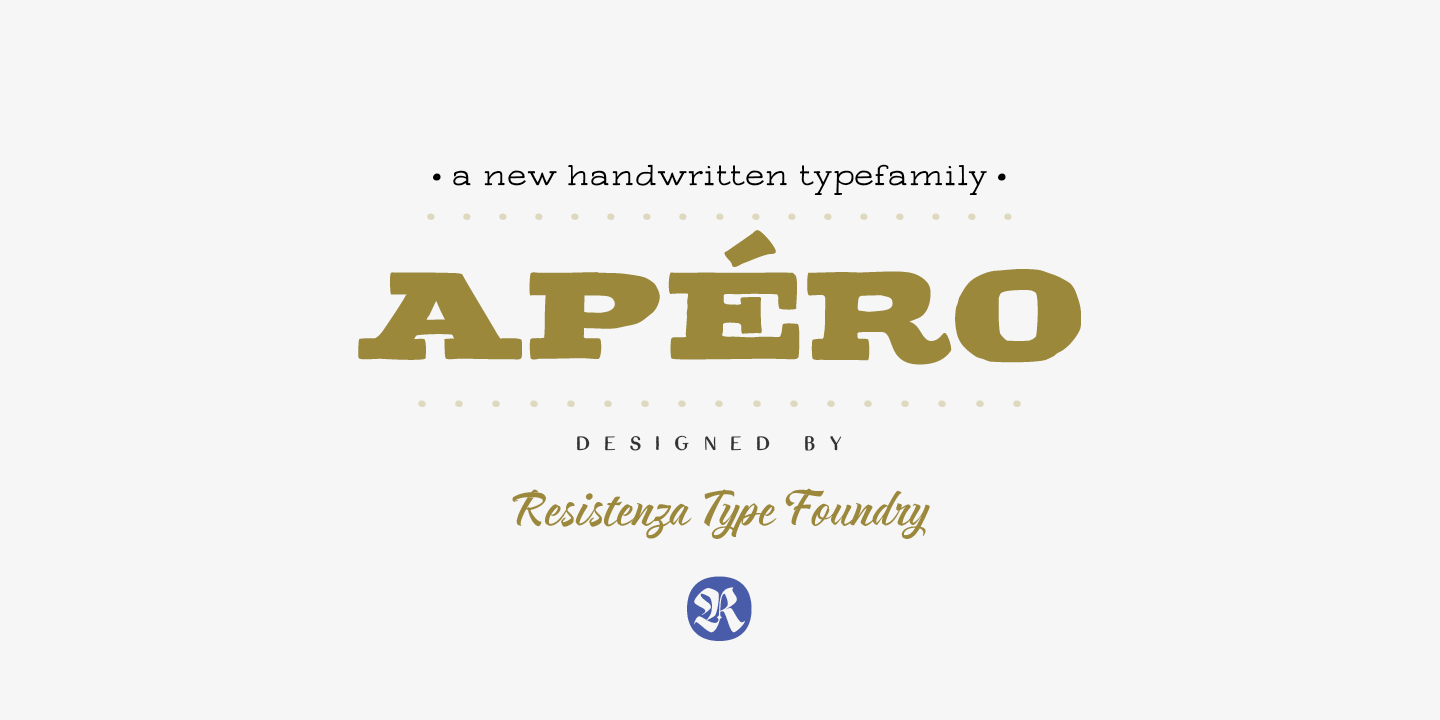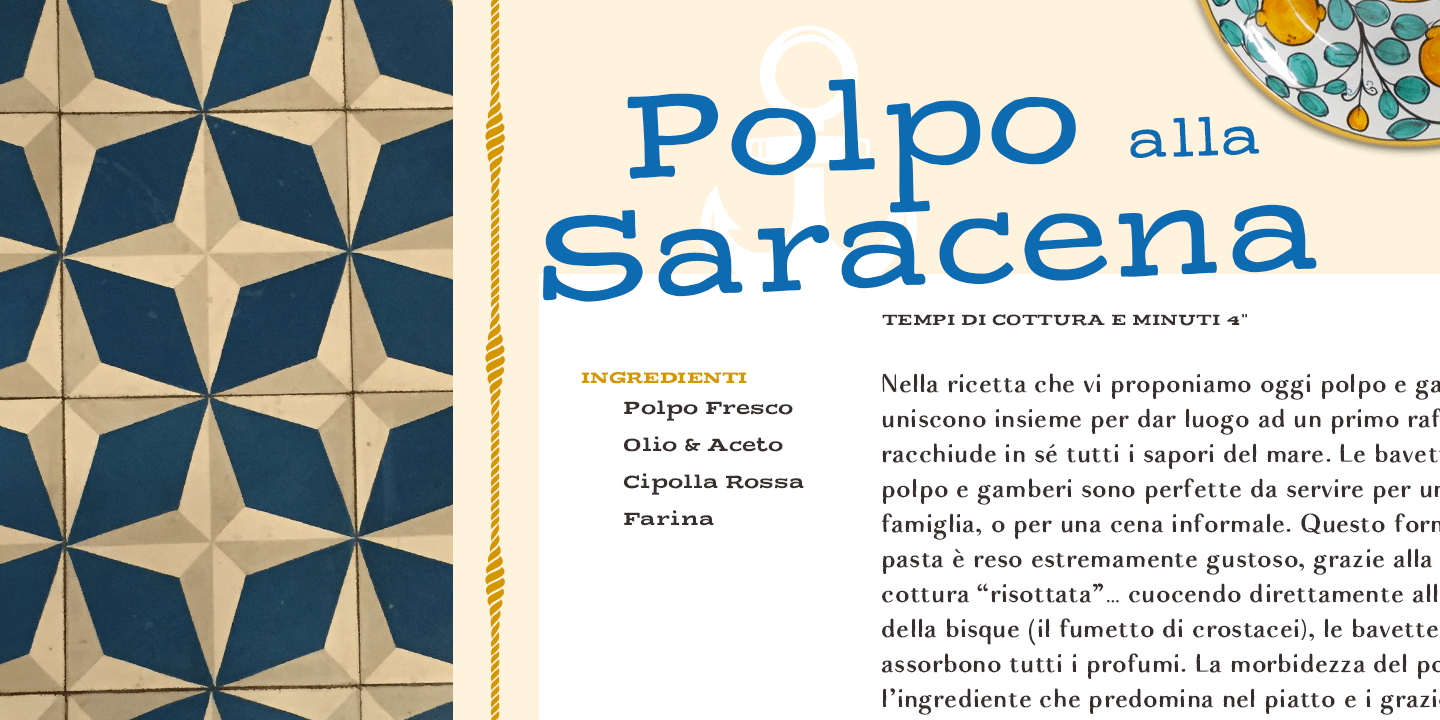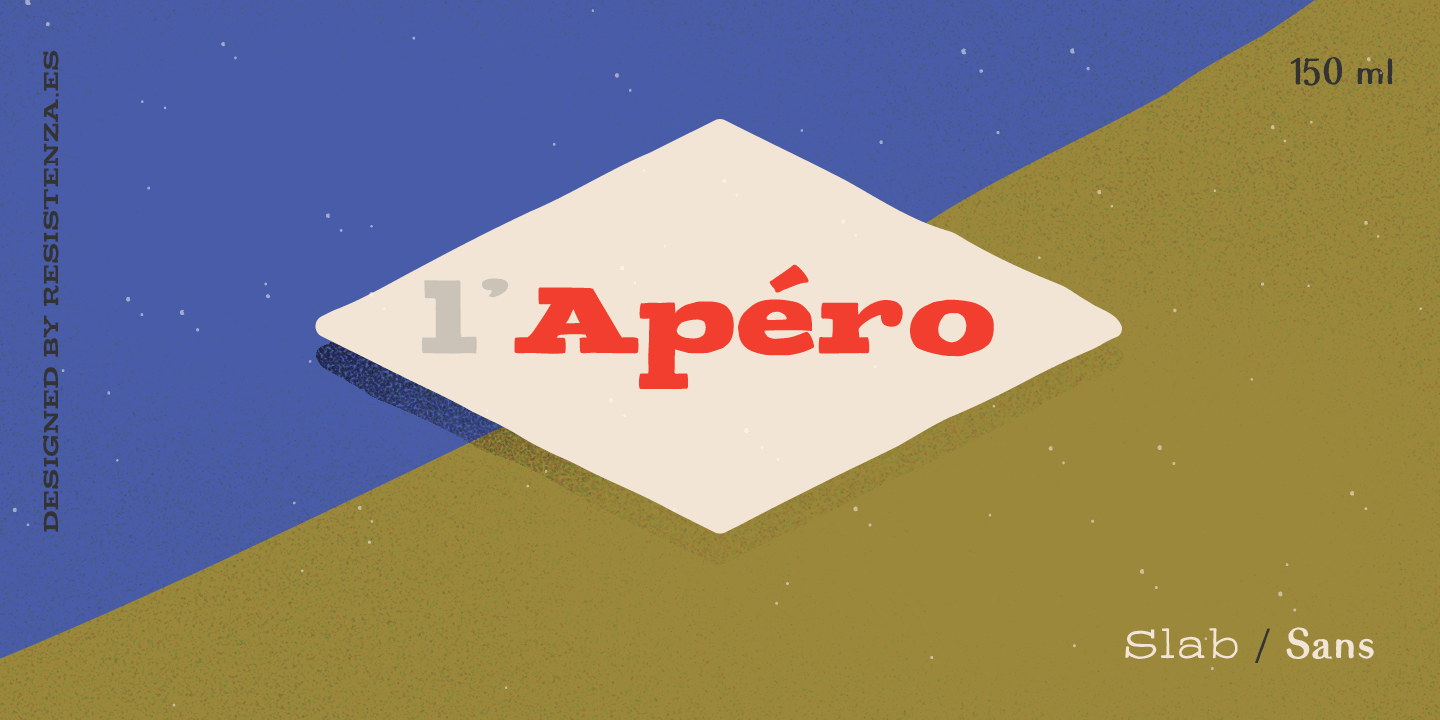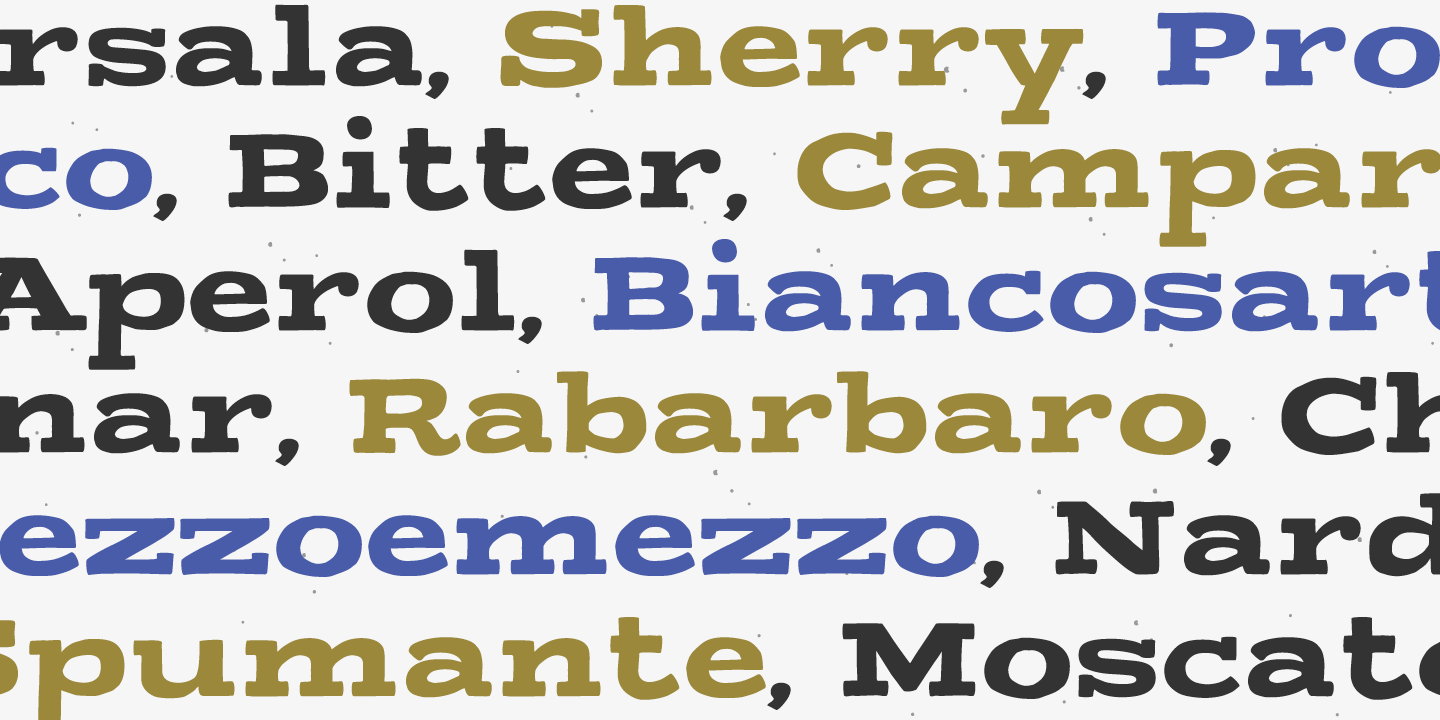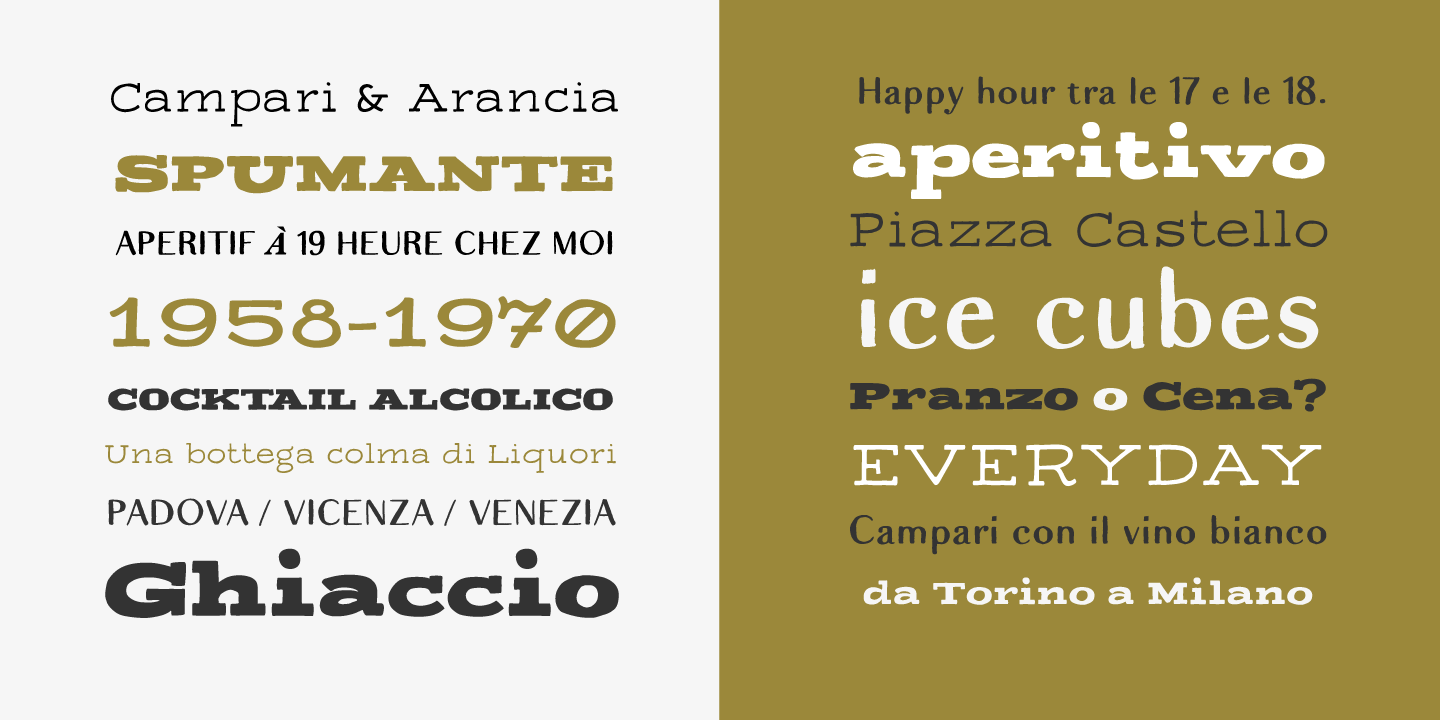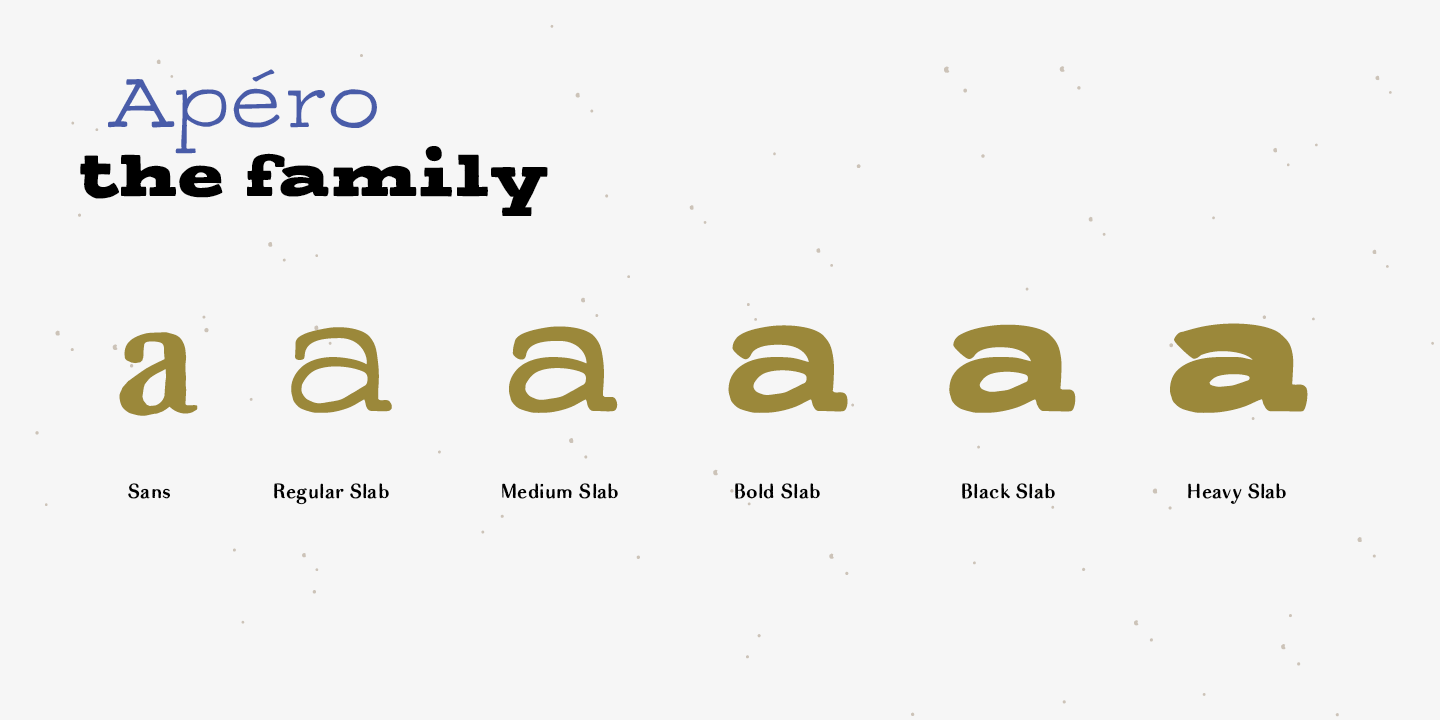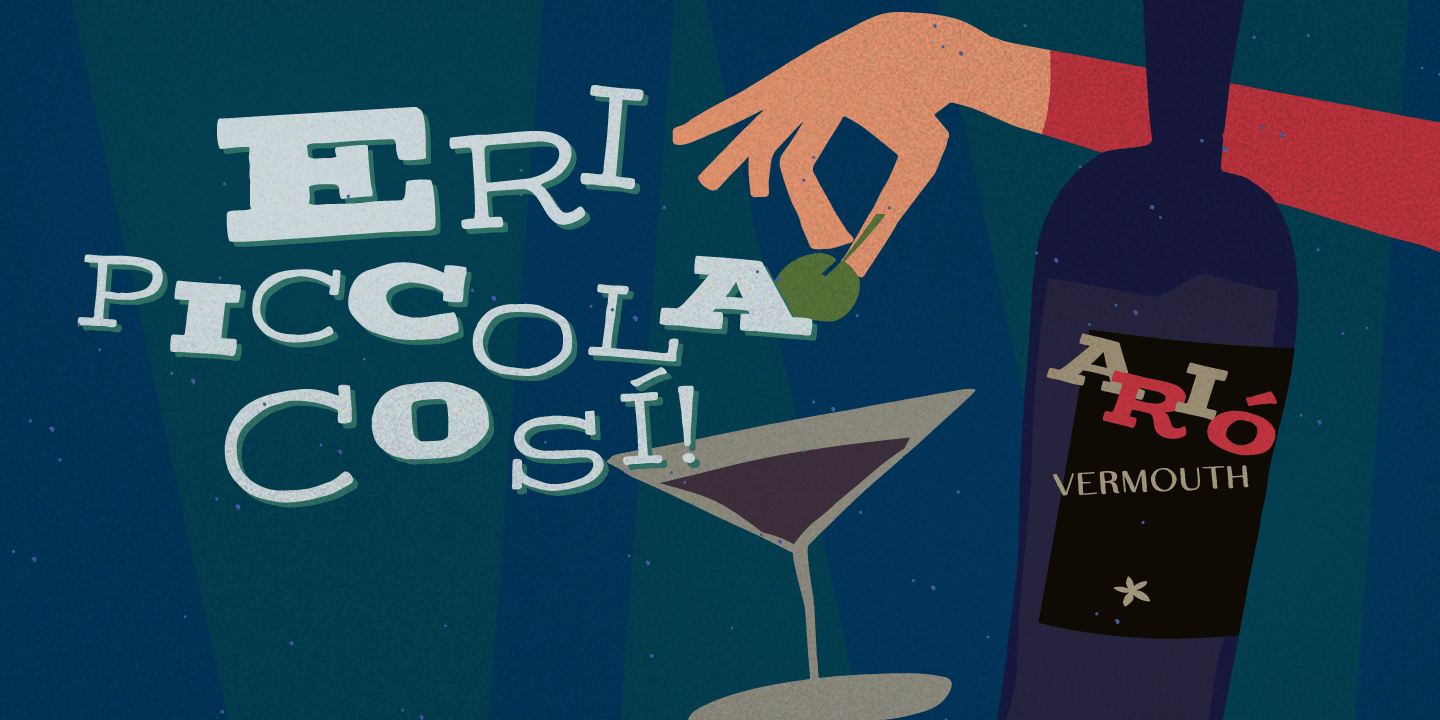
Apéro
About Apéro
A cheerful handwritten font family composed by 8 fonts. 5 slab weights, 2 slab effects and a sans serif. Handmade, friendly and classy, this family is inspired in one of our favorite traditions in Torino, ? L\’Aperitivo ?. The social event every afternoon!…